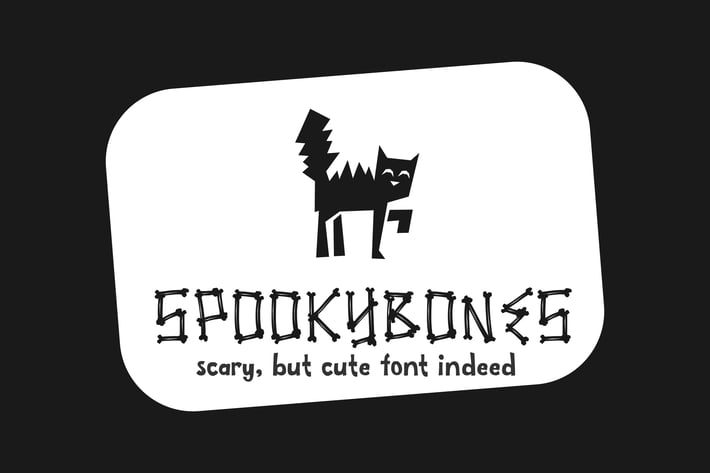
Spookybones - A Fun Sans Serif Halloween Font
SPOOKYBONES
a fun sans serif font made from the bones of the most cute ghost ever.
The bones shape is cute with all those jagged shape. Bring your halloween poster comes alive with the bonus as well.